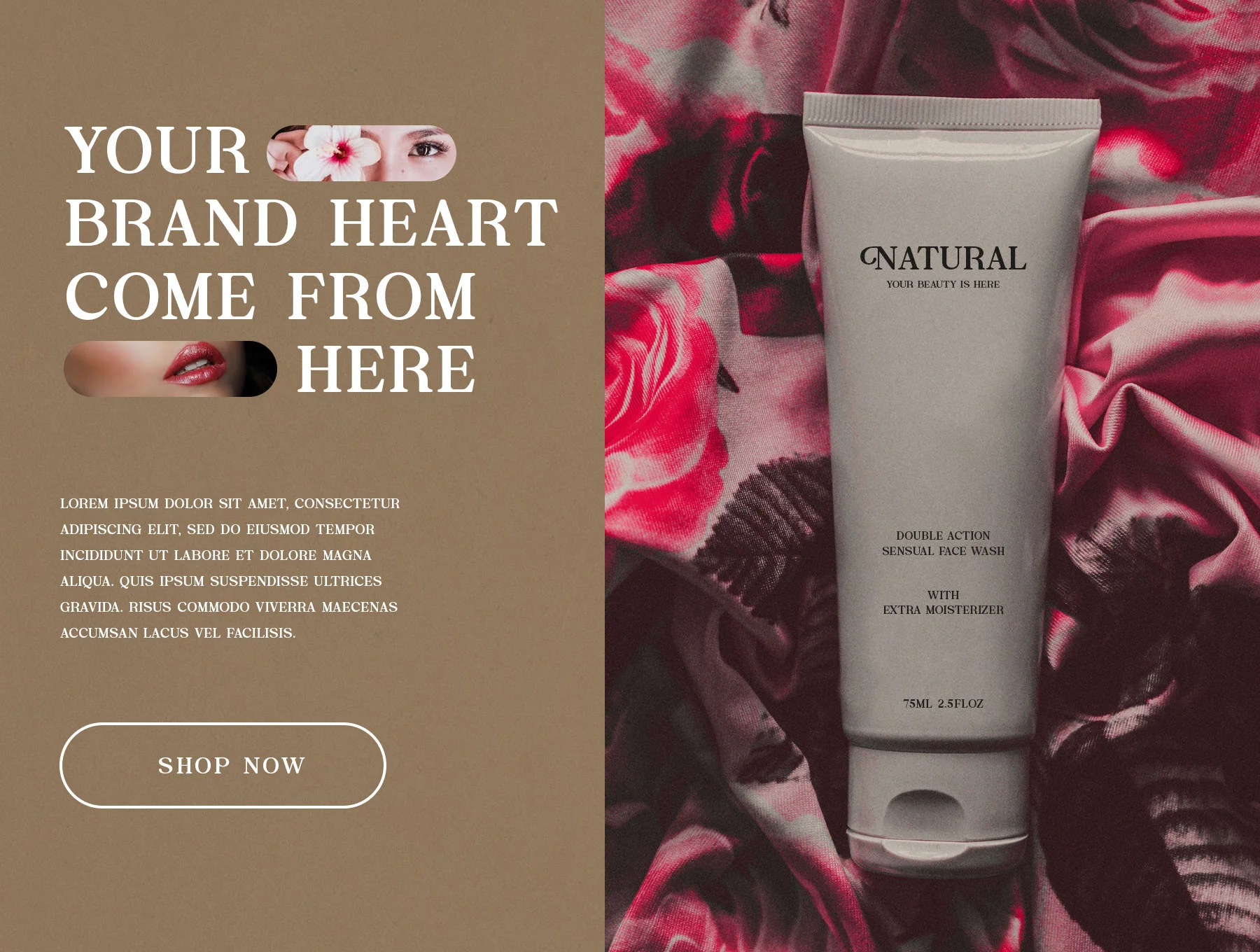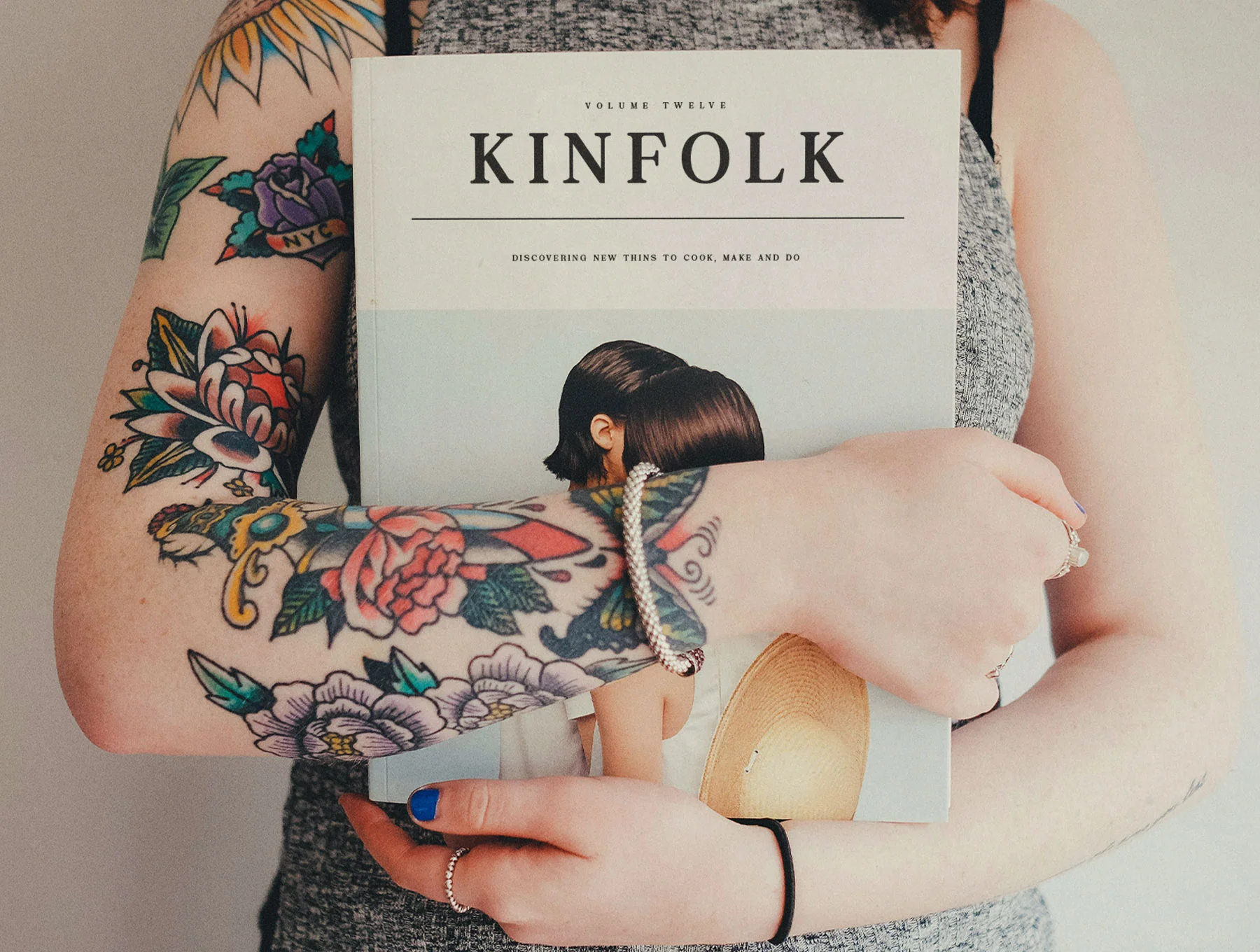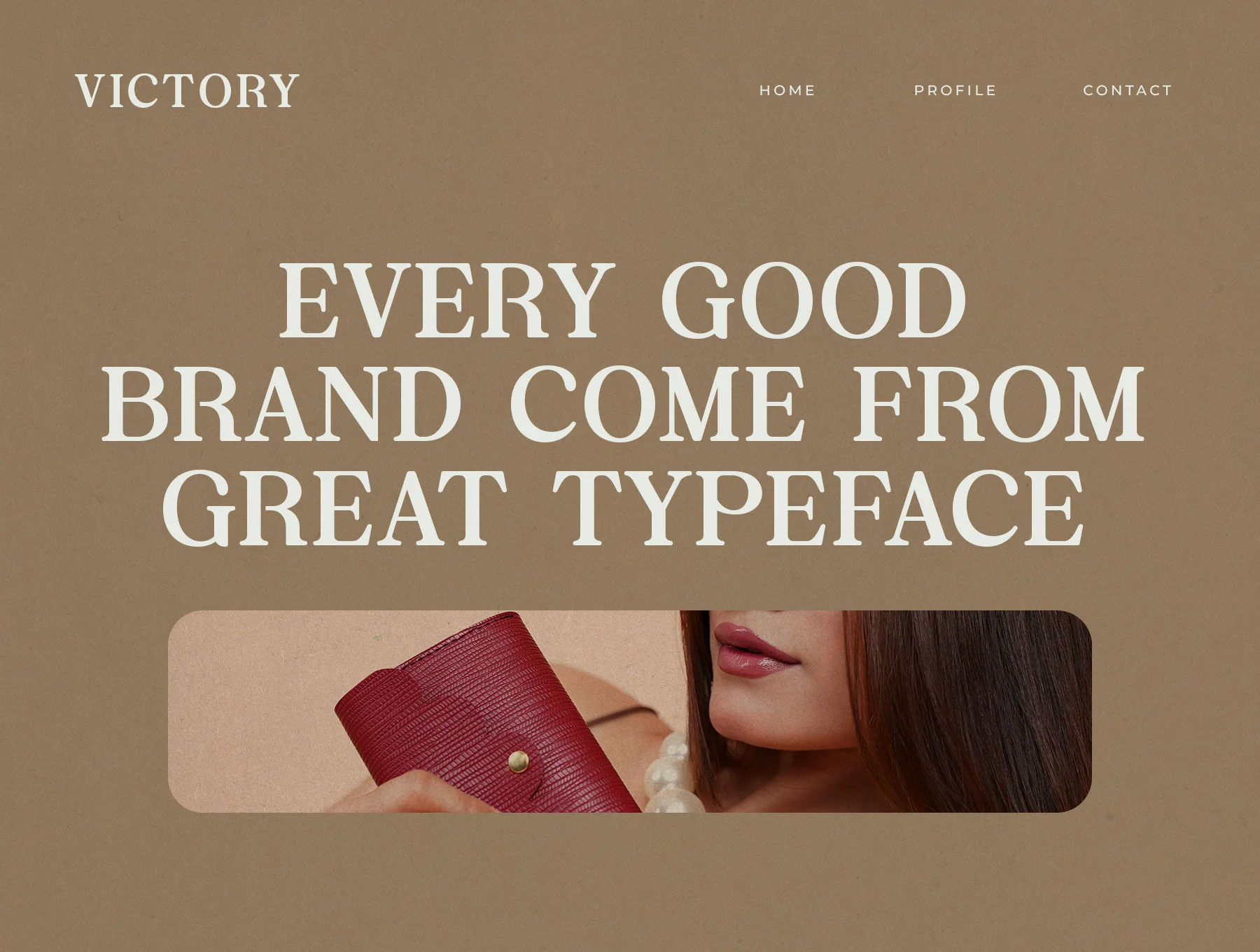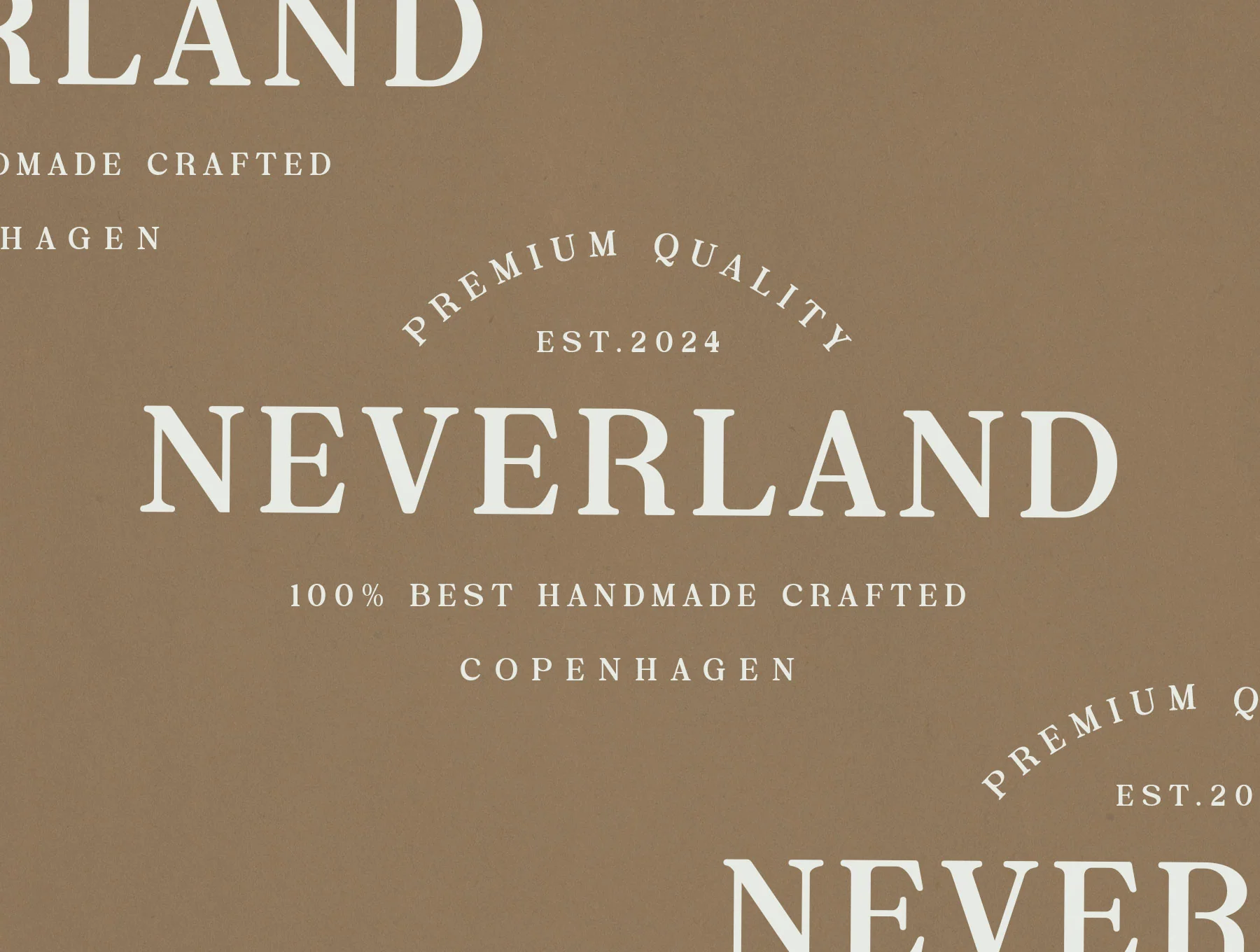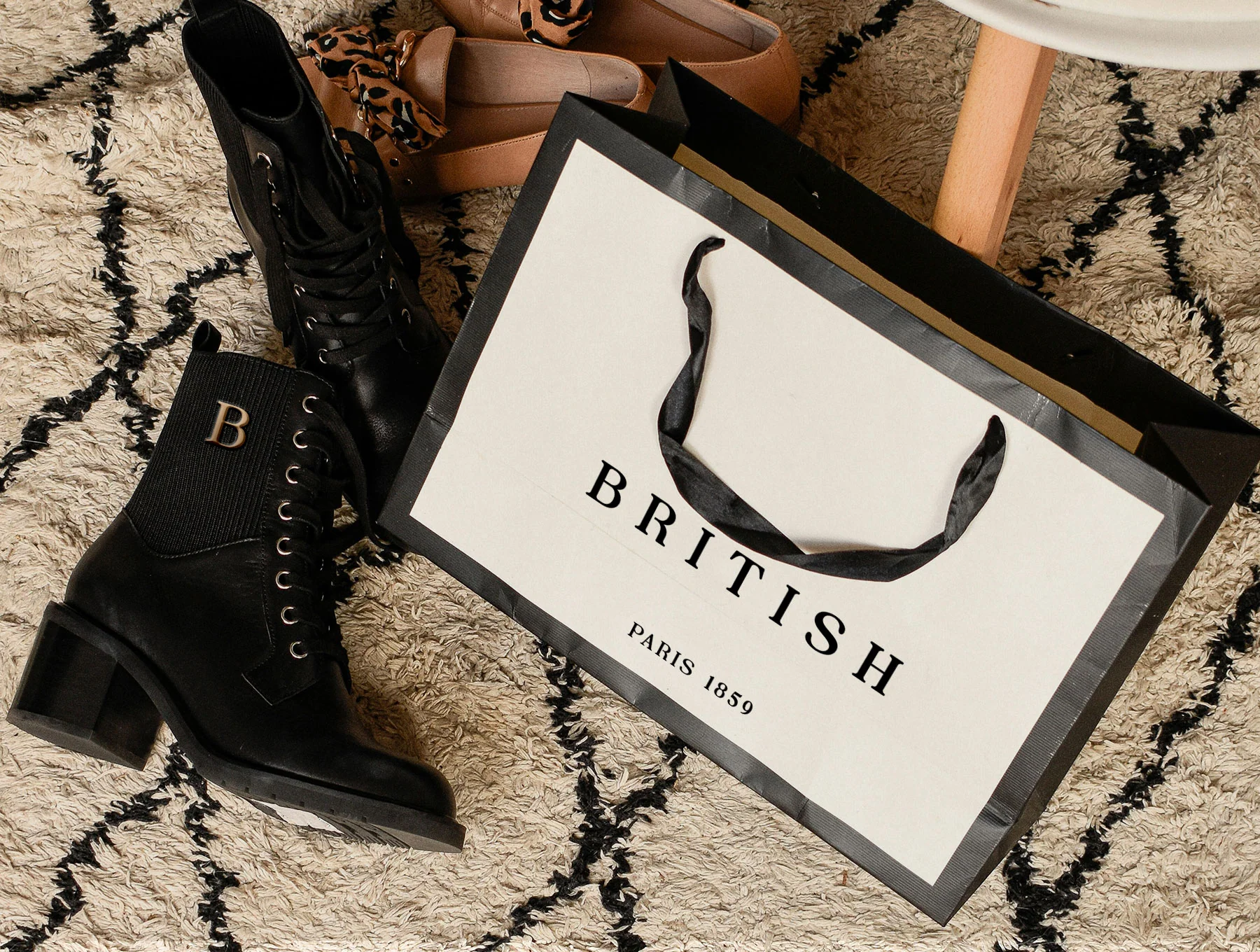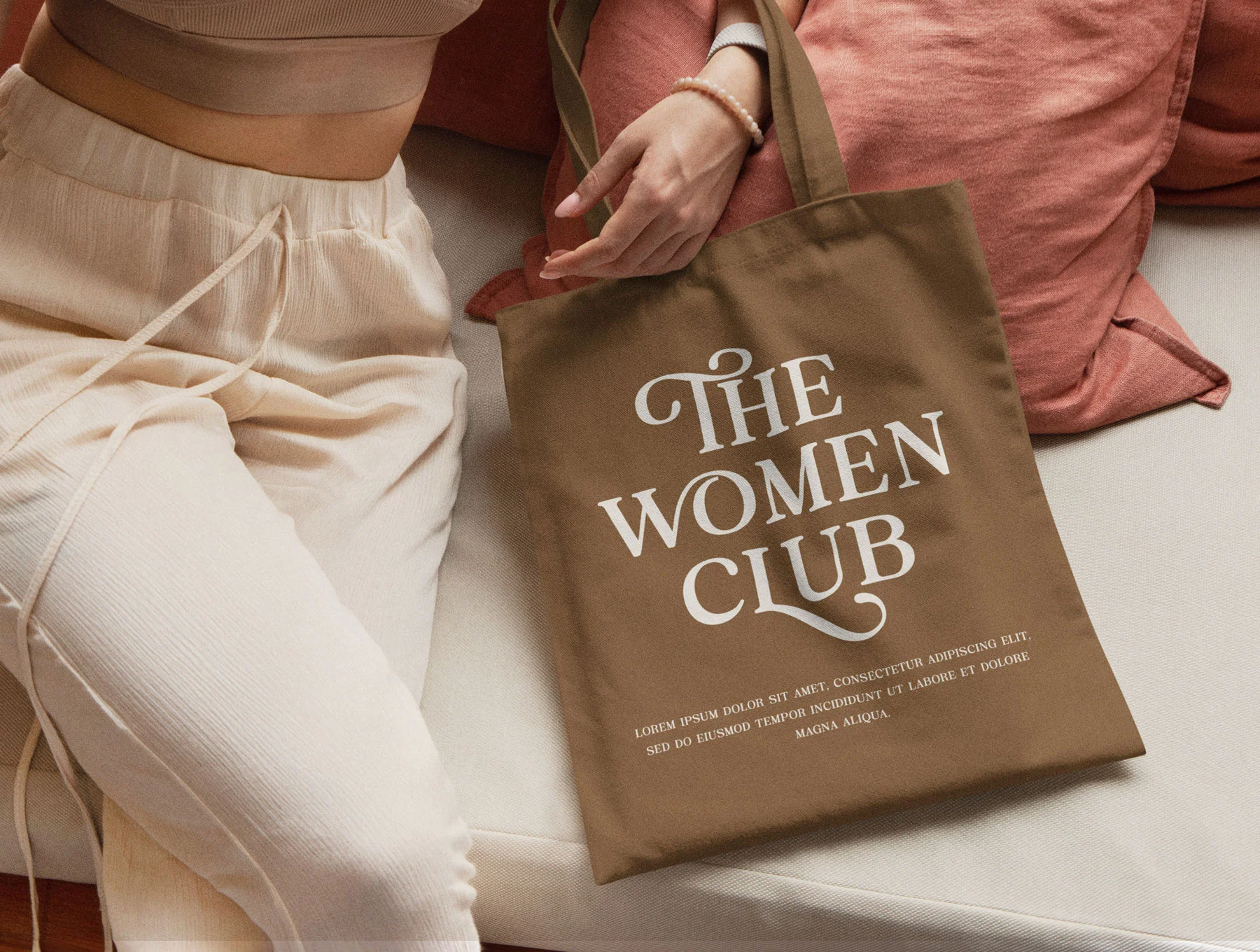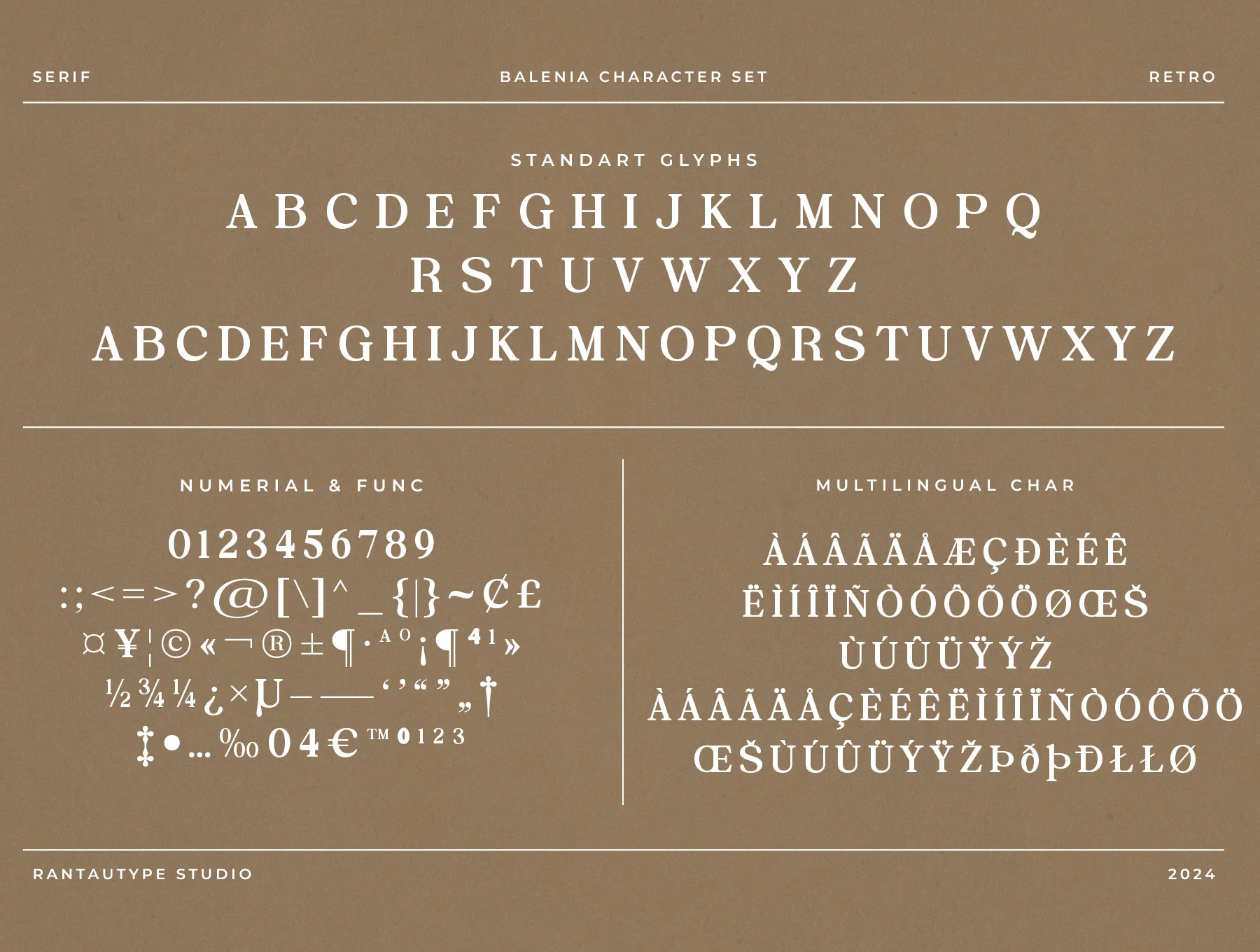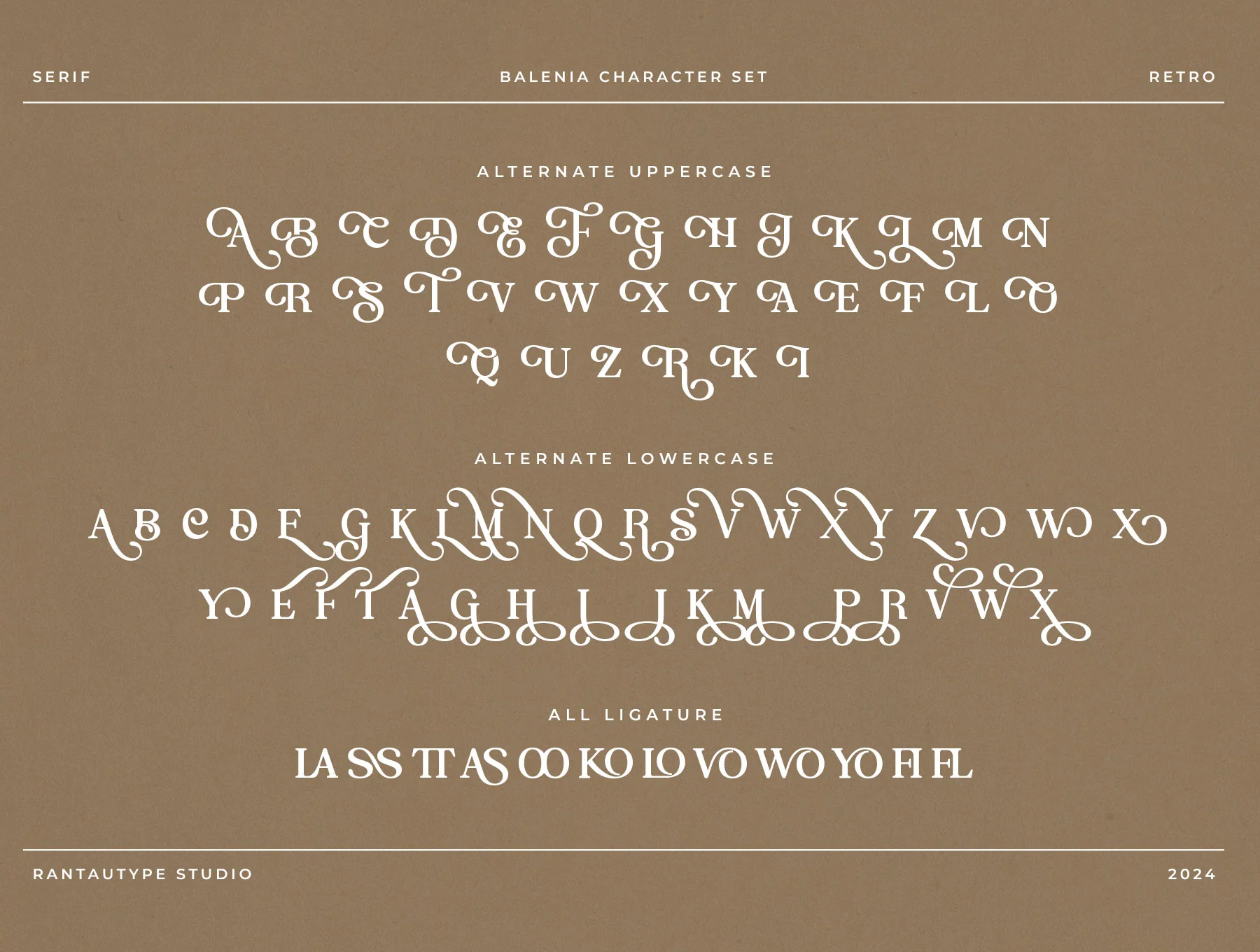
Balenia Retro Display Serif Font
Balenia Vintage Serif Display Typeface
Standard character glyph set
Numerals with functional symbols
Ligatures and alternate characters
Balenia is a retro display serif font with a nostalgic 60s, 70s, and 90s feel, ideal for logos, ads, stationery, branding, magazines, invitations, labels, products, and stylish creative projects. Includes Regular and Italic in OTF, TTF, and WOFF, standard glyphs, numbers, ligatures, alternates, multilingual support, and works on PC, Mac, Adobe apps, and Word.